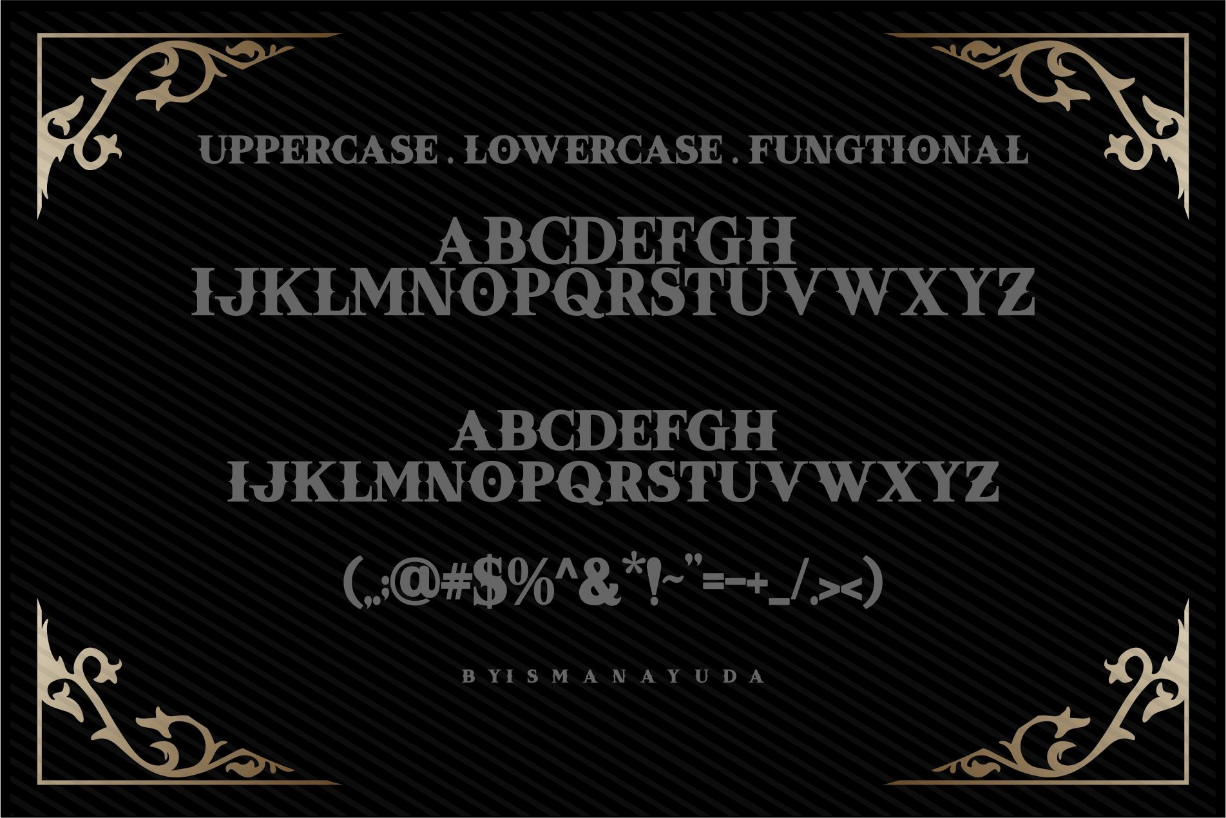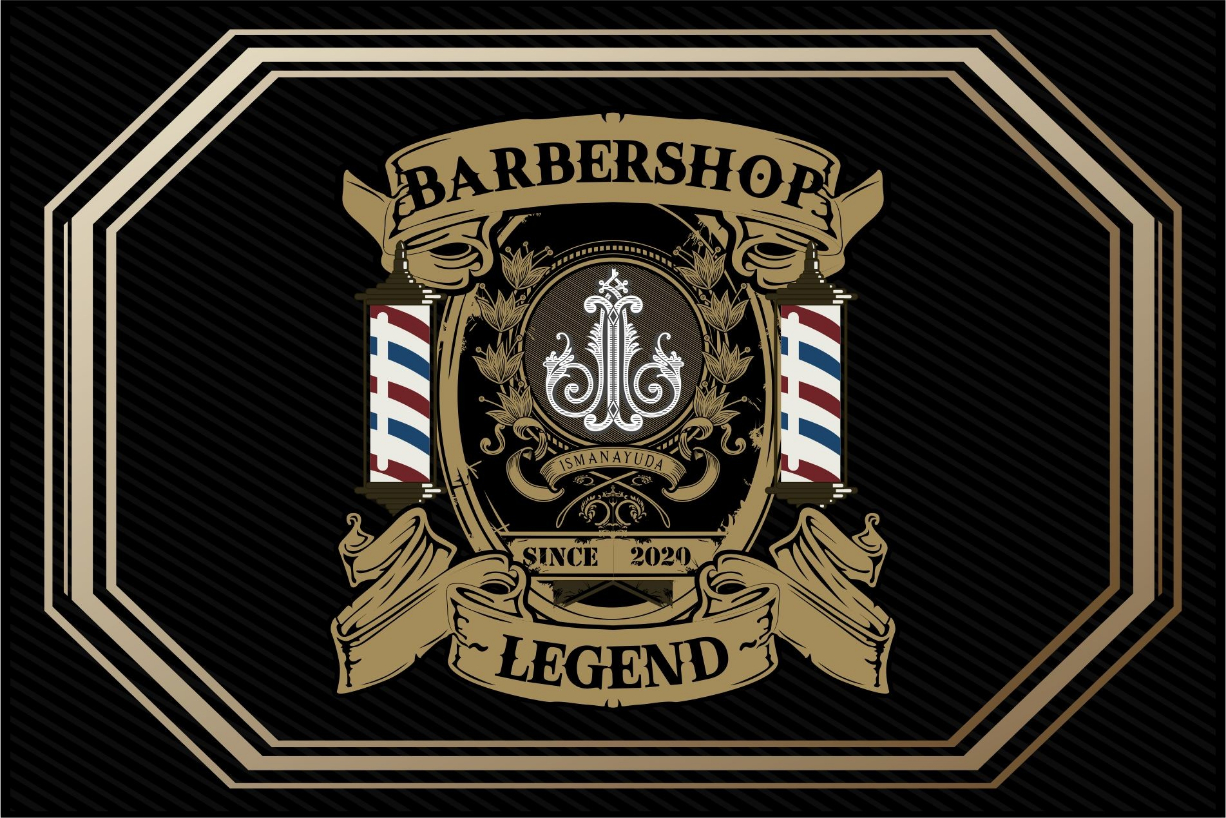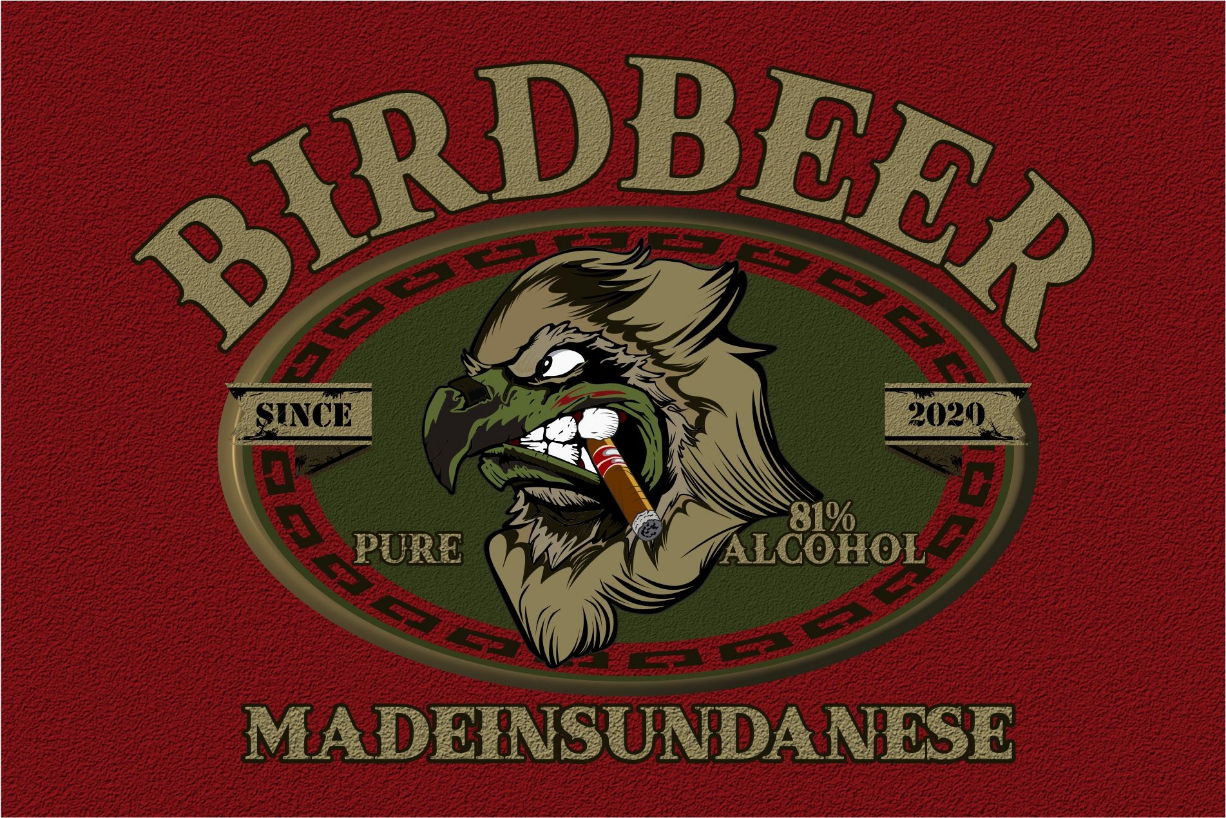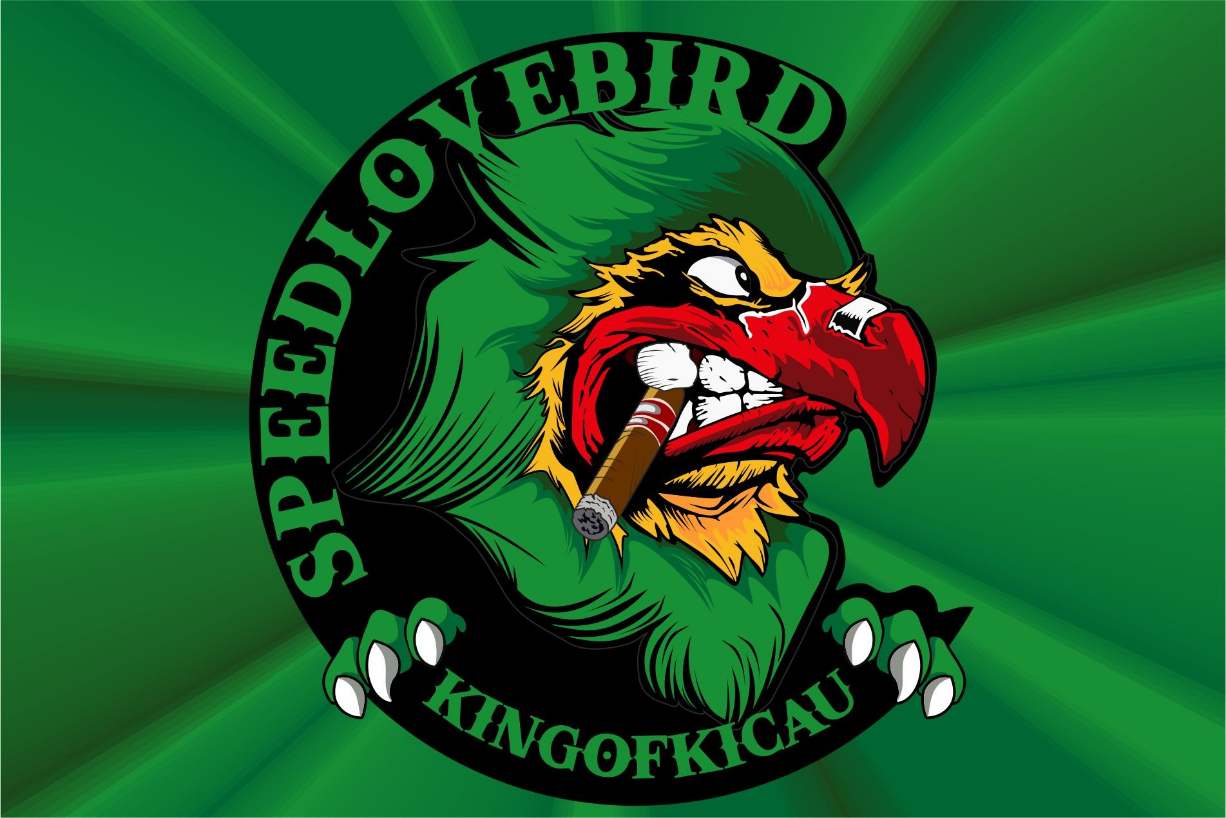
Lakhapati Font
About Lakhapati Font
Lakhapati is a bold, thick lettered blackletter font. Add this assertive and cool font to each of your creative ideas and notice how it makes them stand out!